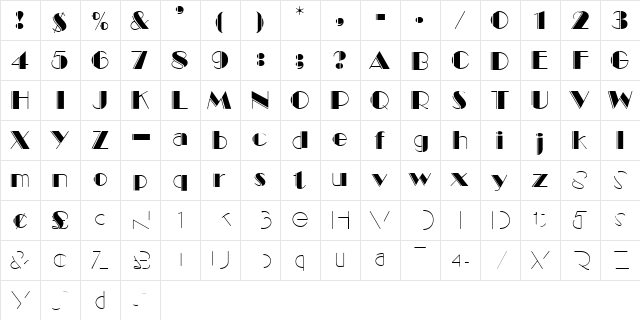
Black Tie Engraved Display SSi Regular
Design Context for Black Tie Engraved Display SSi Typeface
Black Tie Engraved Display SSi brings ornamental detail and strong personality to headlines and identities, where visual impact matters more than quiet functionality.
Font Pairing: Pair with a clean neutral sans-serif for body copy to let Black Tie Engraved Display SSi's character lead without overwhelming the composition.
Pro Tip: Use Black Tie Engraved Display SSi exclusively at display sizes — it was designed to be seen, not read at length. Let a neutral companion handle body copy.